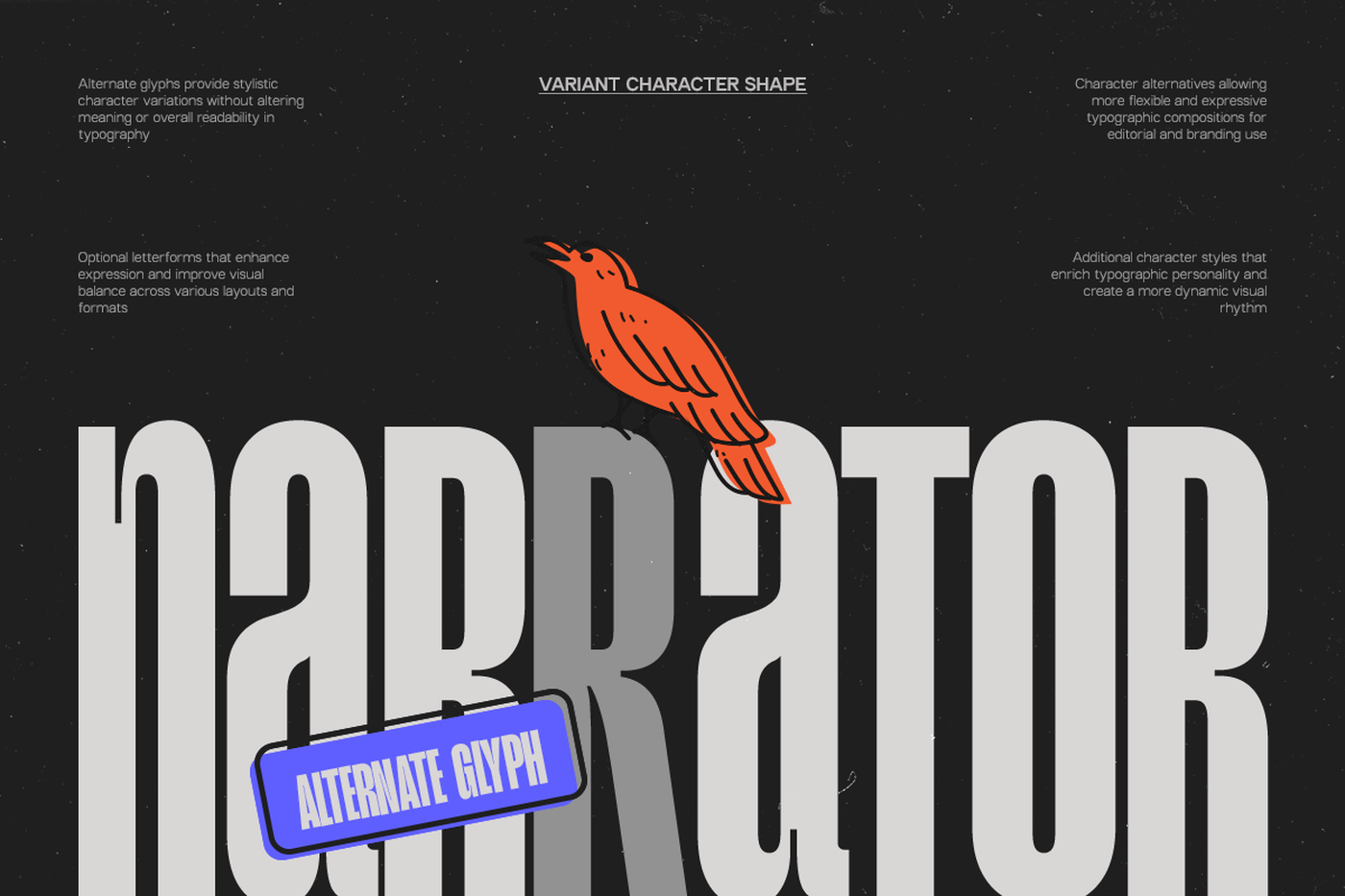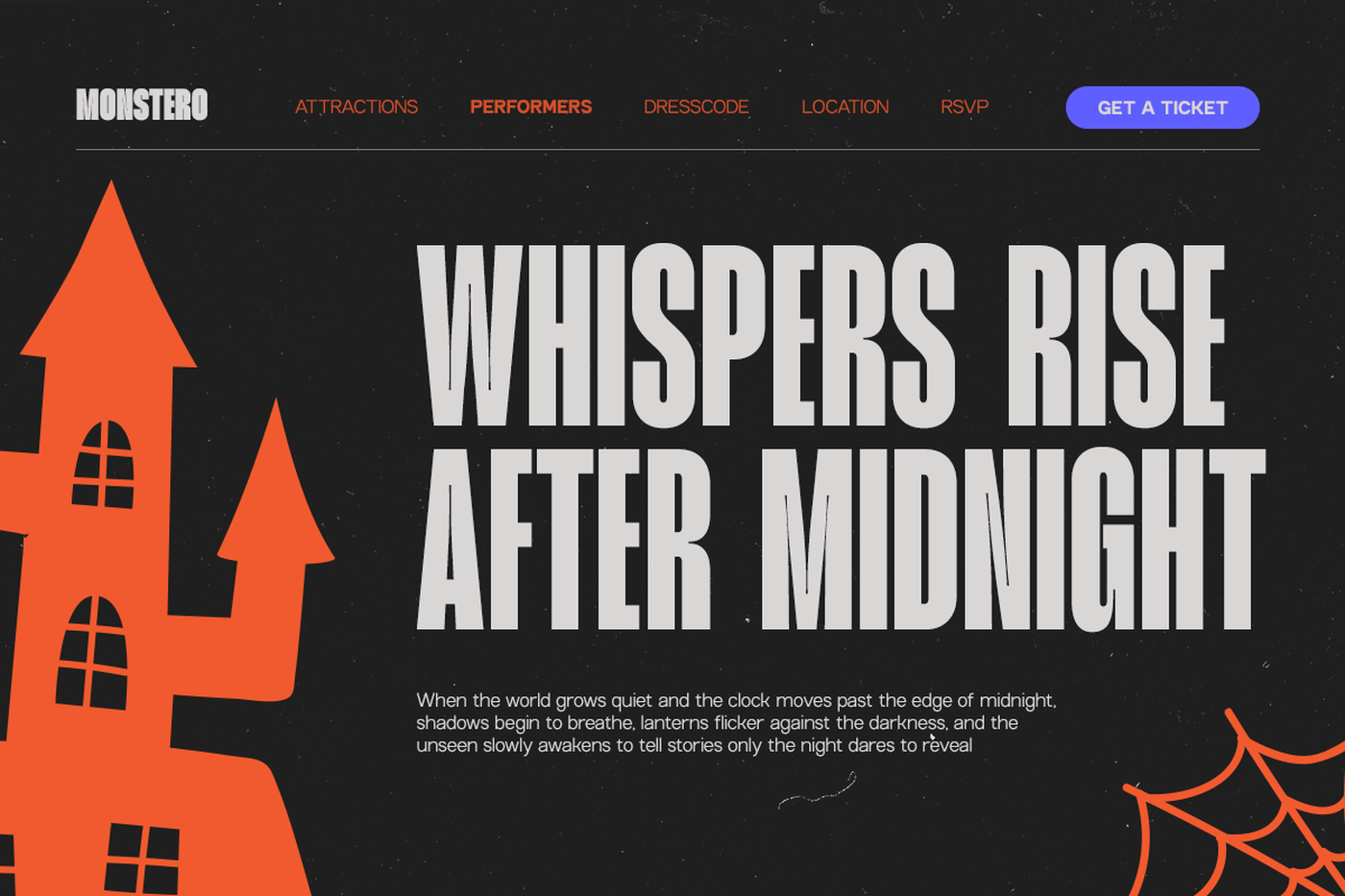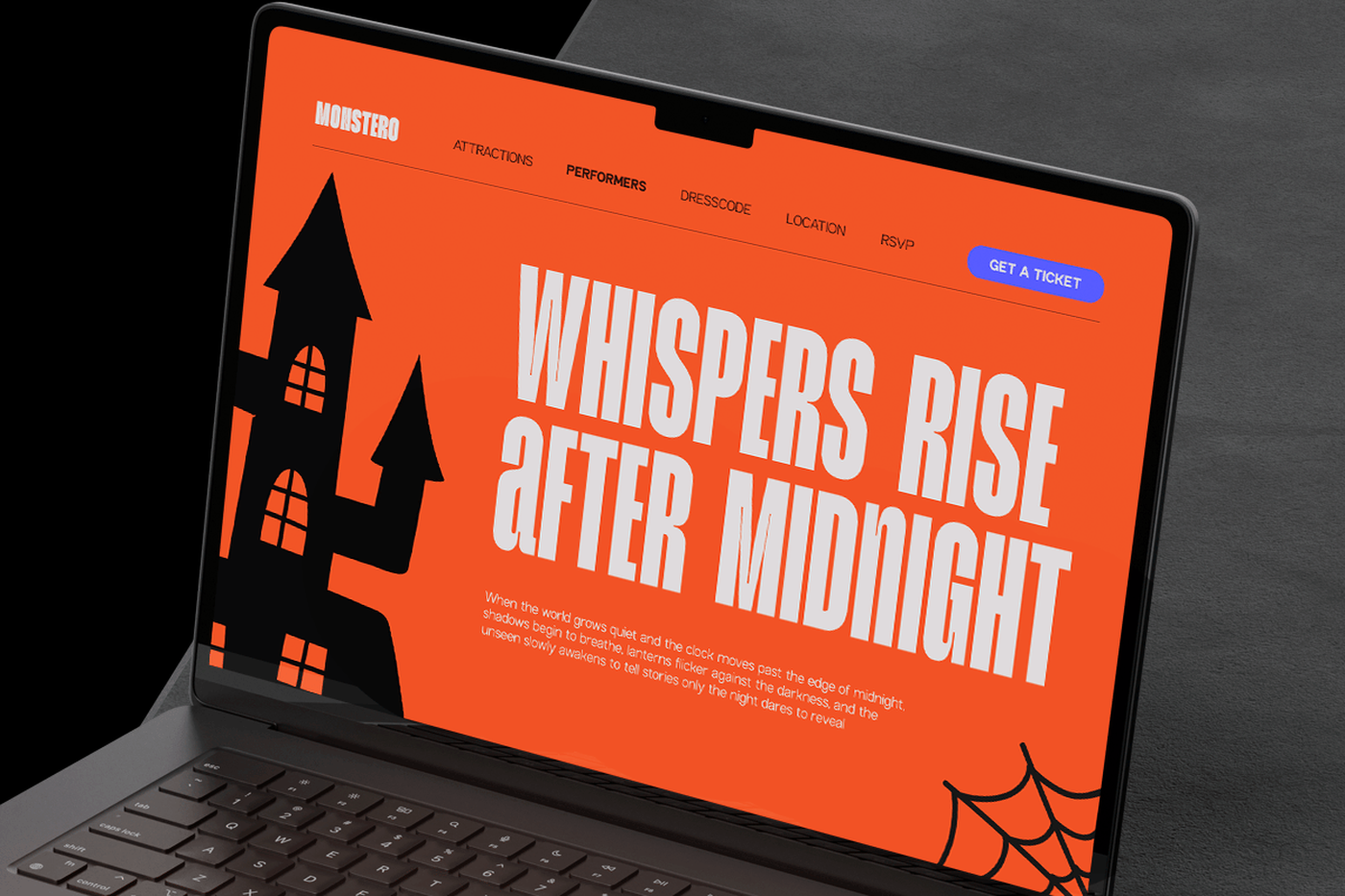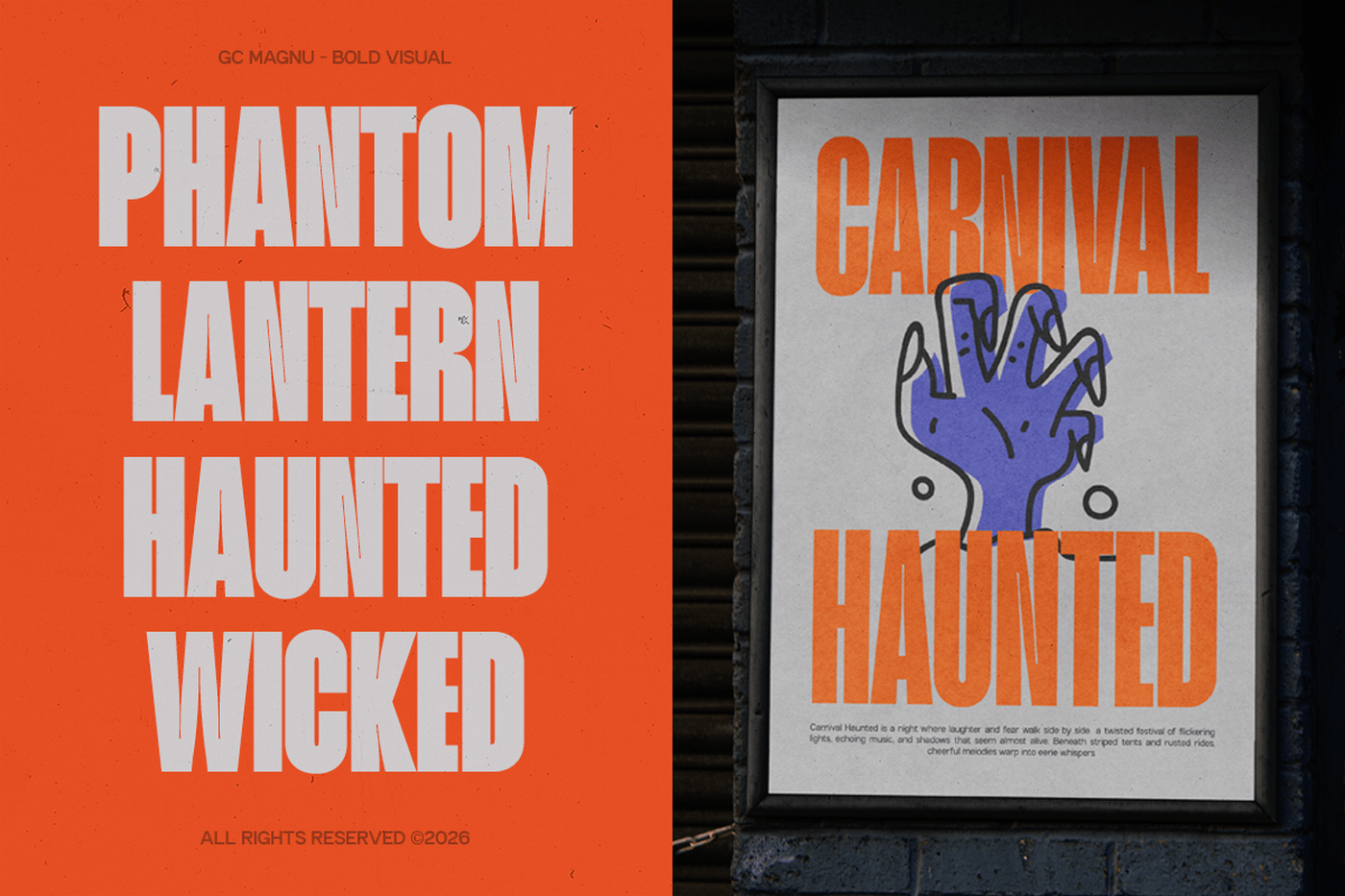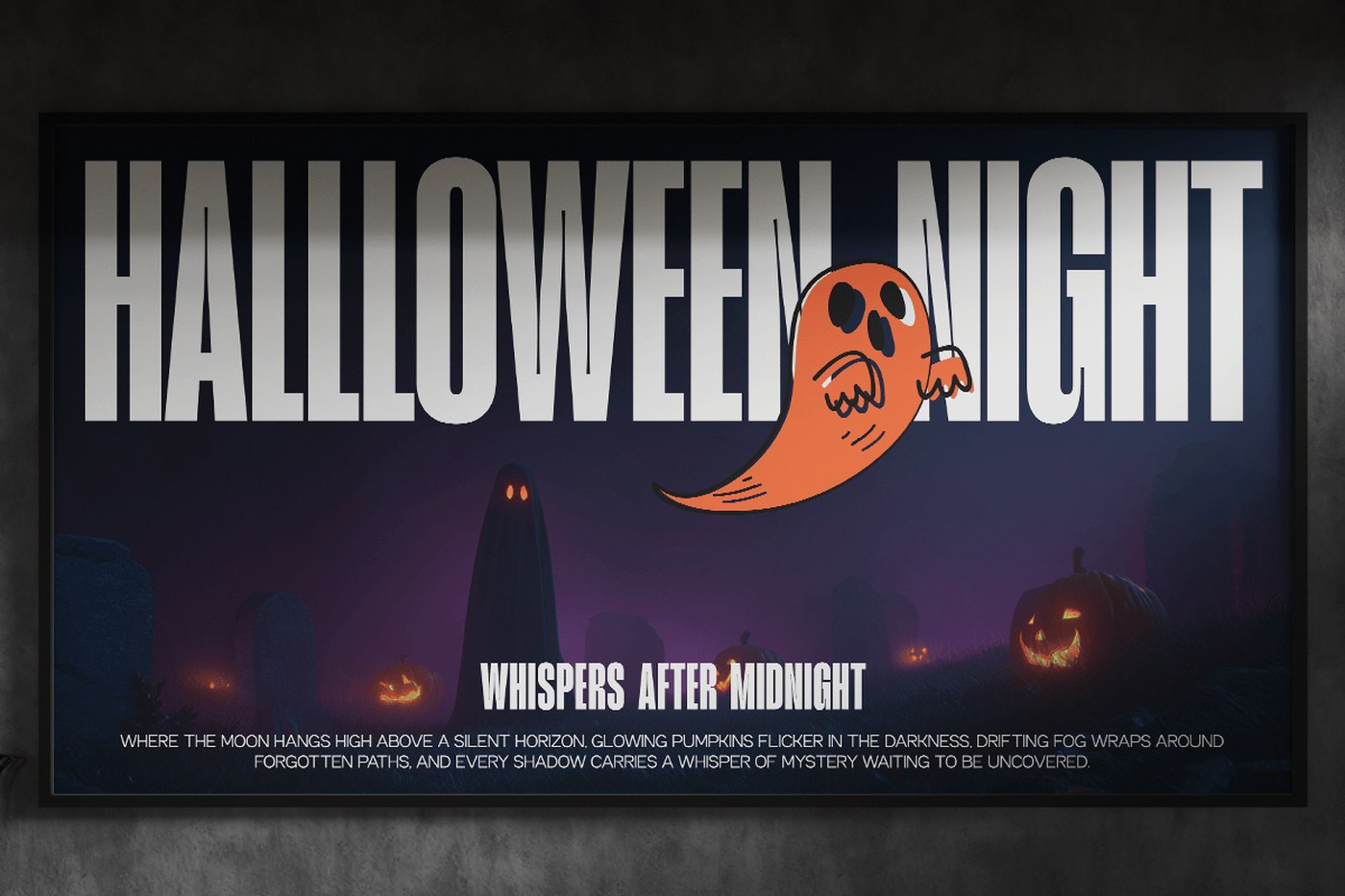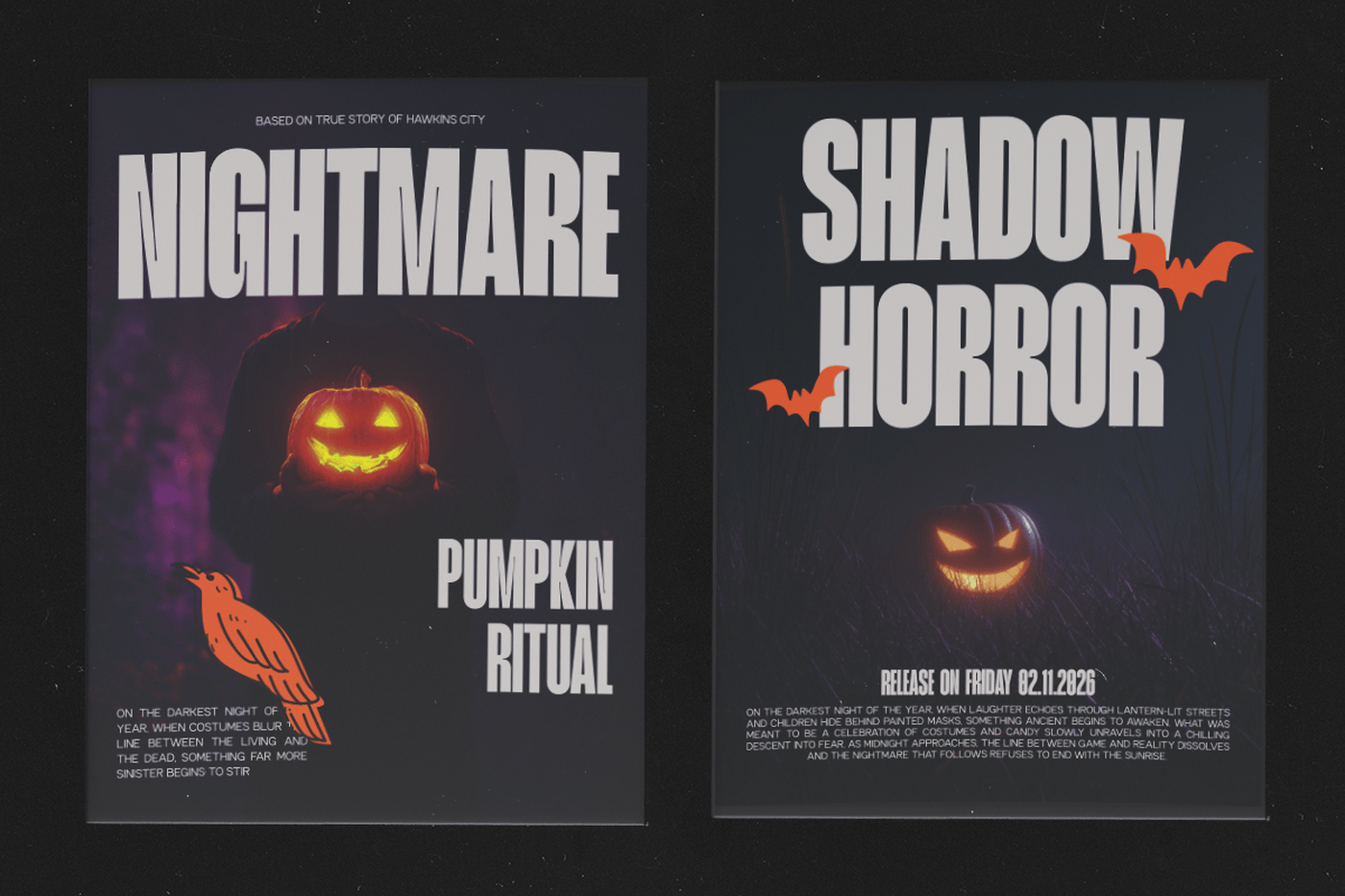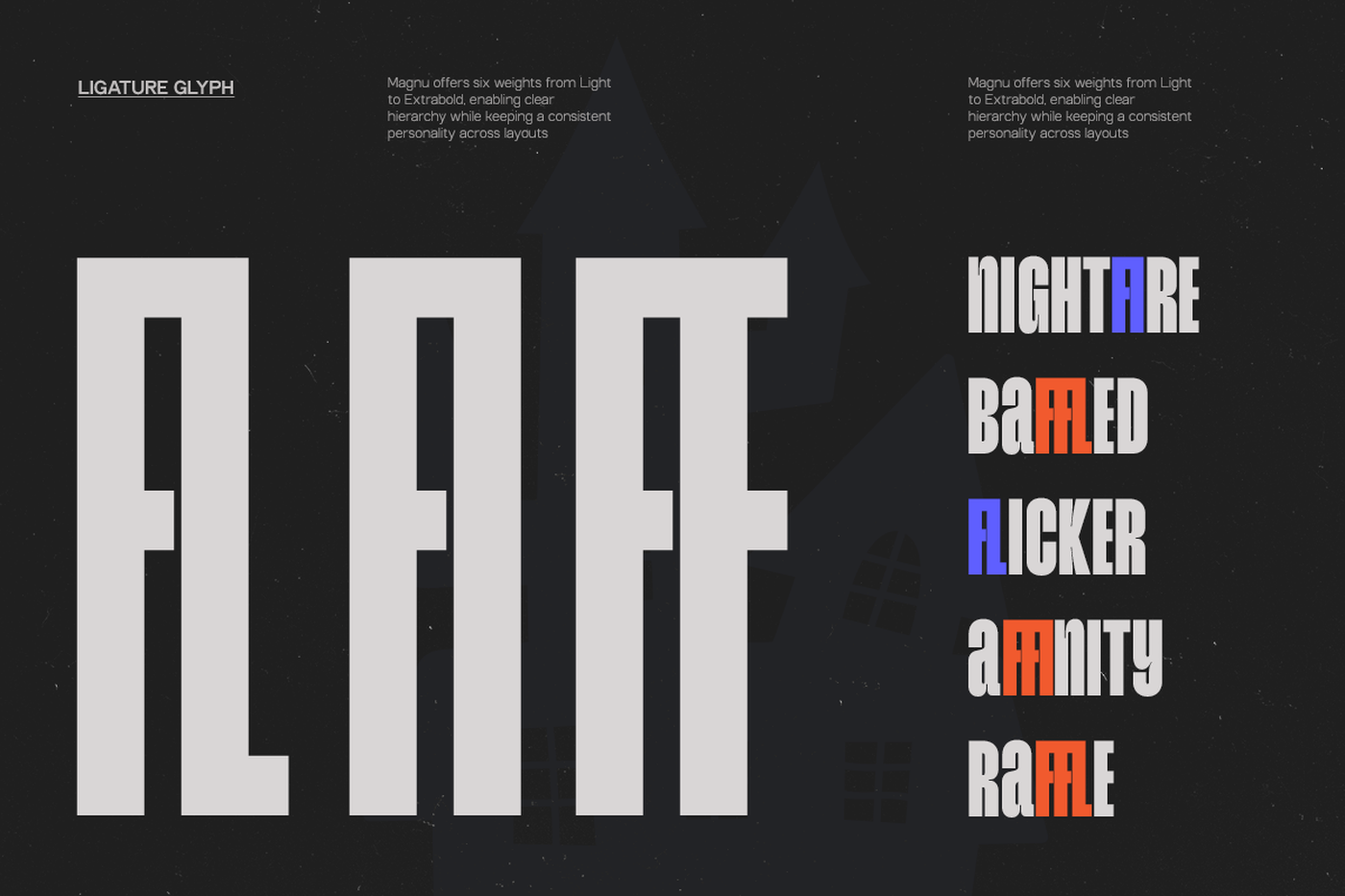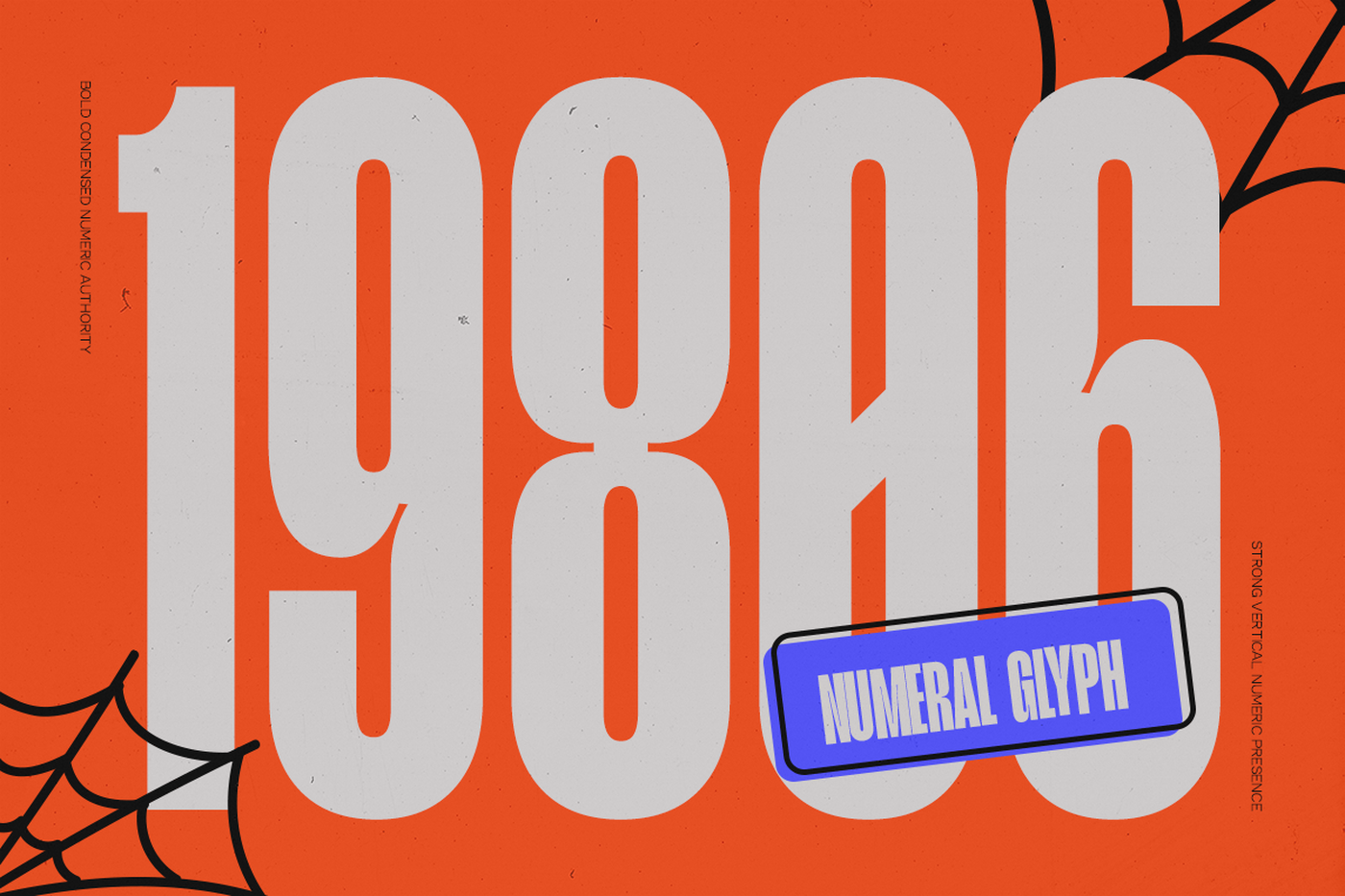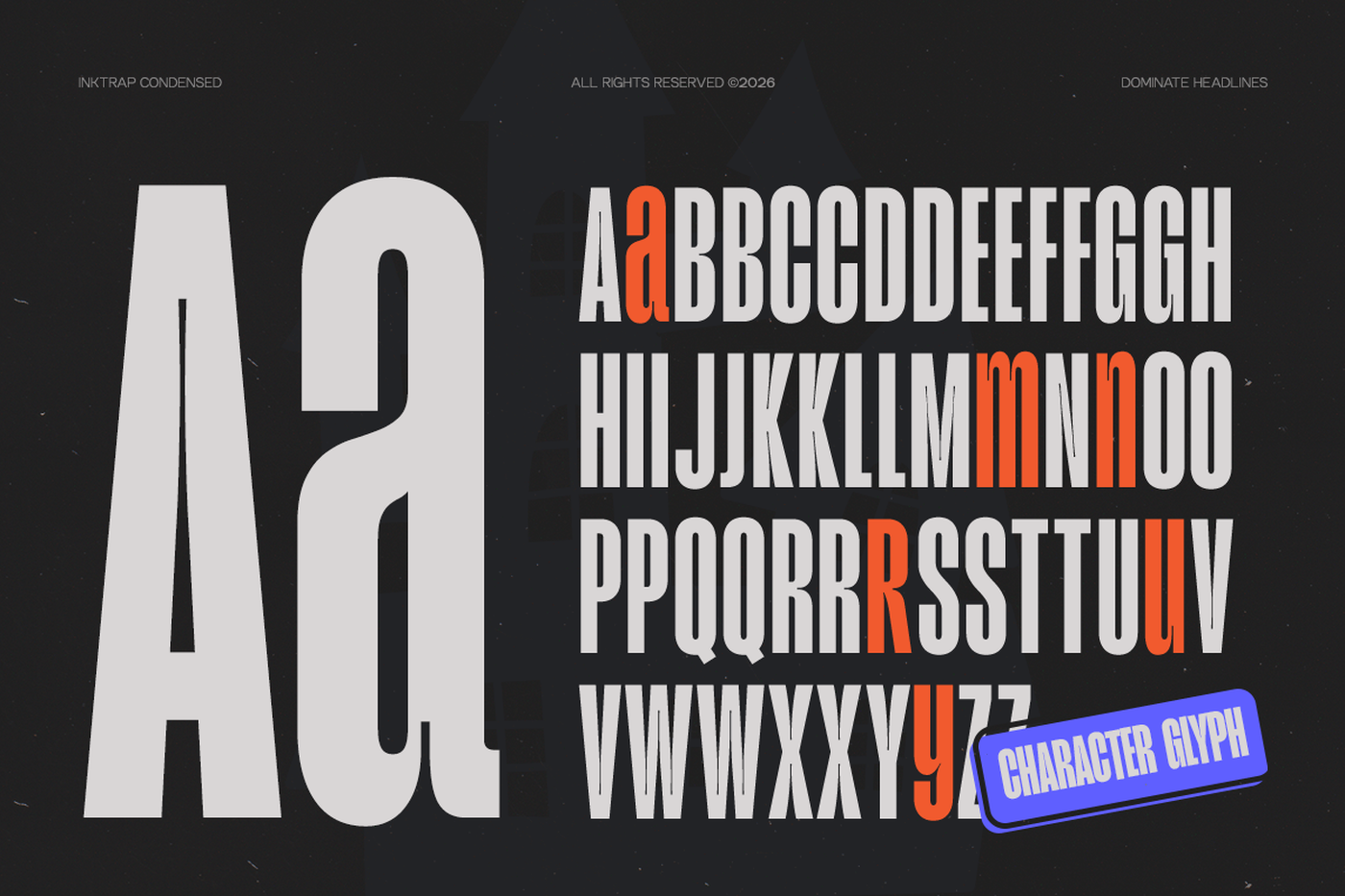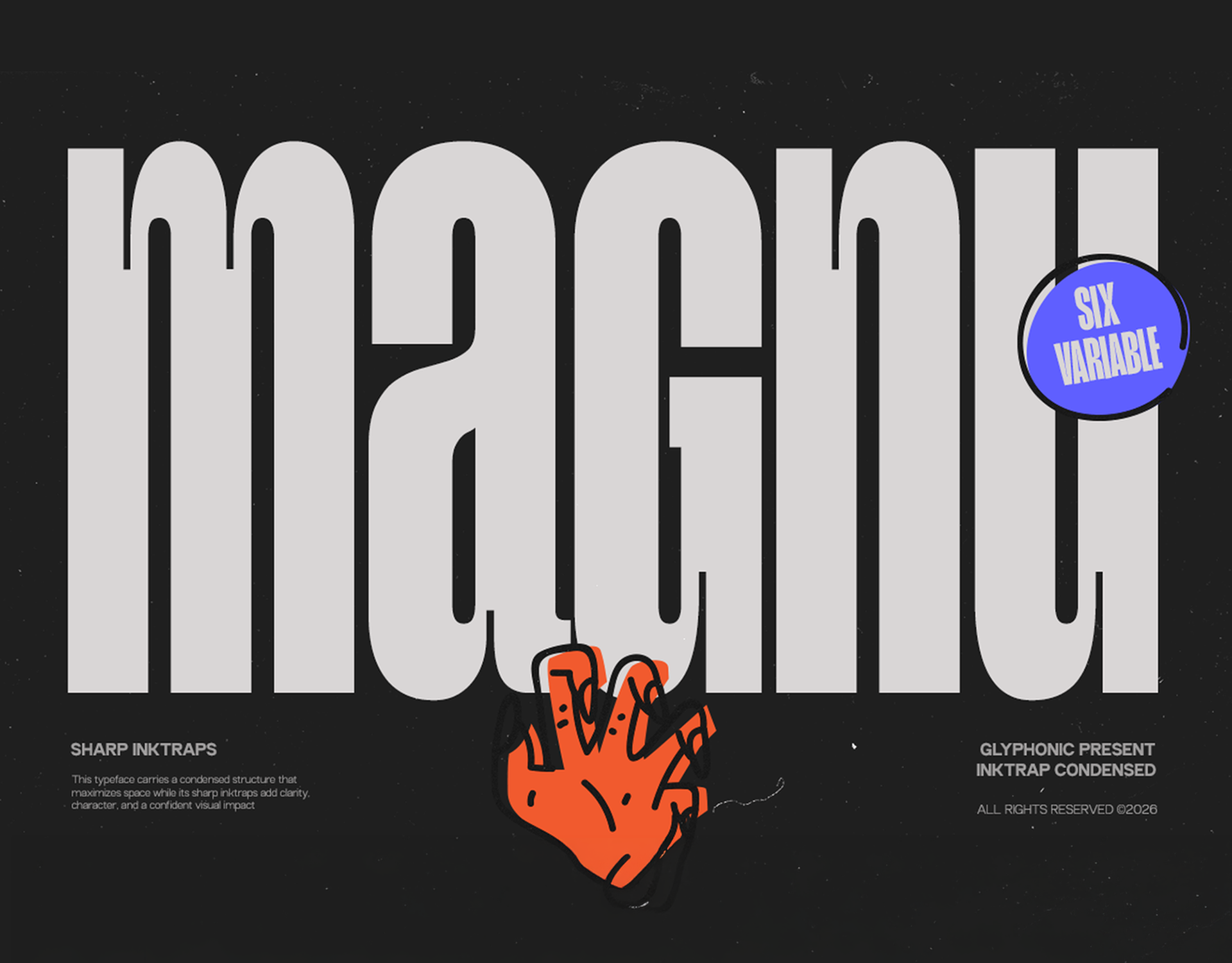
Magnu - Inktrap Condensed Font
Magnu is a modern sans serif typeface engineered with precision, functionality, and bold character. Featuring distinctive inktrap details and a condensed structure, it is designed to maximize readability while maintaining a strong and contemporary visual presence. Built for high-performance typography, GC Magnu excels in tight spaces without sacrificing clarity. Its sharp geometry and carefully crafted inktraps enhance legibility across various sizes, making it ideal for branding, editorial layouts, user interfaces, packaging, and data-driven design systems. Combining technical efficiency with modern aesthetics, GC Magnu delivers a confident and structured tone that works seamlessly across both digital and print media. Whether used for compact headlines, impactful titles, or dense text compositions, it provides clarity, rhythm, and visual strength.
Designer: Glyphonic
Font: Magnu